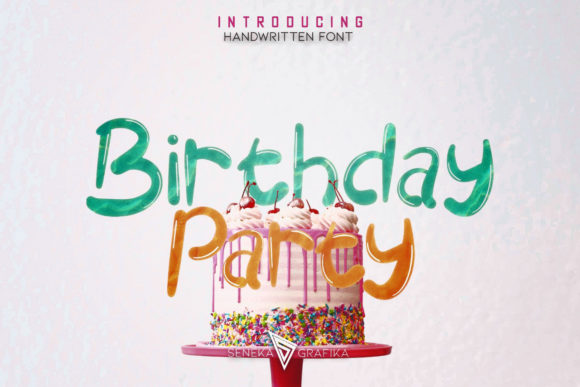
Introducing Birthday Party Font: The Perfect Addition to Your Design Collection
Are you looking for a font that can add a personal touch to your designs? Look no further than the Birthday Party Font! This unique and simple handwritten font is perfect for informal designs, such as posters, birthday cards, banners, and more. With its playful and elegant feel, it’s sure to elevate your creations and make them stand out.
What Makes Birthday Party Font So Special?
Birthday Party Font is a one-of-a-kind font that is designed to bring a touch of whimsy and fun to your designs. Its handwritten style gives it a personal and informal feel, making it perfect for designs that require a more relaxed and casual approach. The font is simple, yet elegant, making it suitable for a wide range of design projects.
Uses for Birthday Party Font
So, what can you use Birthday Party Font for? The possibilities are endless! Here are a few ideas to get you started:
- Posters: Create eye-catching posters for birthday parties, events, or promotions with this lovely font.
- Birthday Cards: Add a personal touch to your birthday cards with Birthday Party Font.
- Banners: Design beautiful banners for parties, events, or sales with this elegant font.
- Social Media Graphics: Use Birthday Party Font to create engaging social media graphics, such as Facebook posts, Instagram stories, and more.
- DIY Projects: Add a personal touch to your DIY projects, such as scrapbooking, crafting, and more.
Why Choose Birthday Party Font?
There are many fonts available, but Birthday Party Font stands out from the rest. Here are a few reasons why:
- Unique: Birthday Party Font is a one-of-a-kind font that will add a personal touch to your designs.
- Simple: The font is easy to read and simple to use, making it perfect for a wide range of design projects.
- Elegant: Despite its simplicity, Birthday Party Font has an elegant feel that will elevate your designs.
- Versatile: The font is suitable for a wide range of design projects, from posters to social media graphics.
Here are a few tips and tricks to help you get the most out of Birthday Party Font:
- Experiment with different colors: Try pairing Birthday Party Font with different colors to create unique and eye-catching designs.
- Play with font sizes: Experiment with different font sizes to add emphasis and create visual interest.
- Combine with other fonts: Try pairing Birthday Party Font with other fonts to create interesting and dynamic designs.
In conclusion, Birthday Party Font is a unique and simple handwritten font that is perfect for informal designs. With its playful and elegant feel, it’s sure to elevate your creations and make them stand out. Whether you’re a designer, crafter, or DIY enthusiast, Birthday Party Font is a great addition to your design collection.